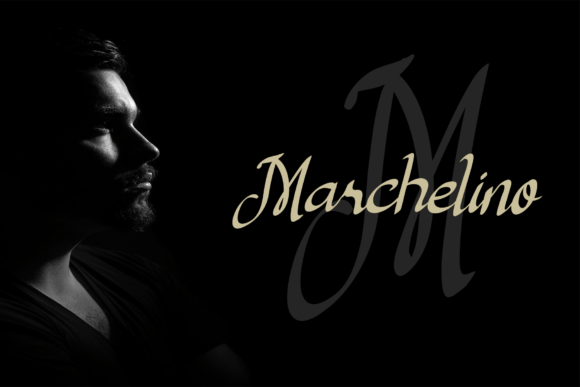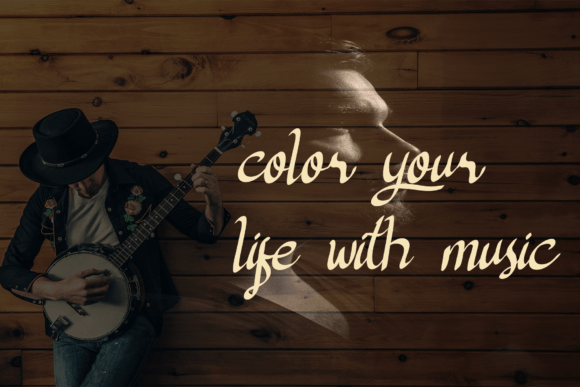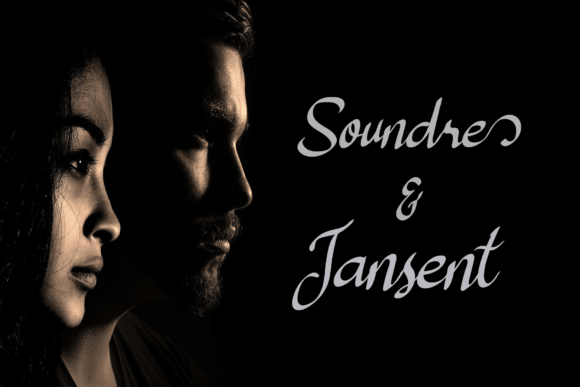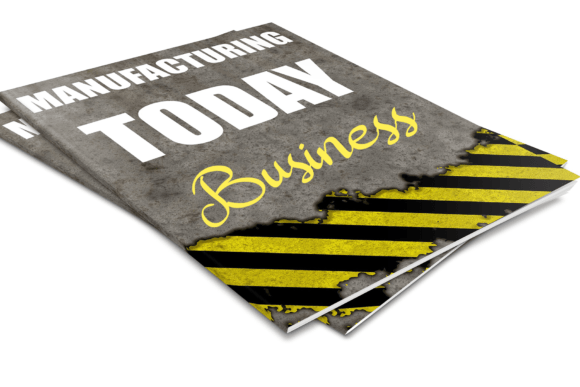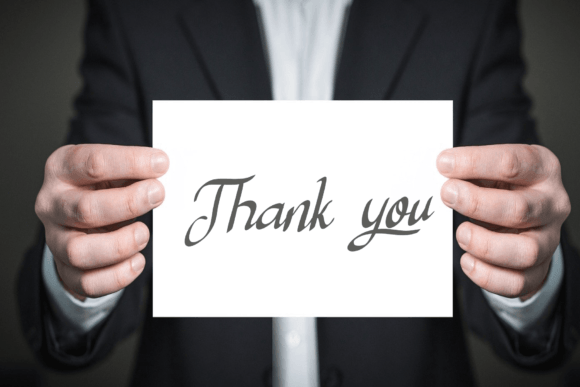
Valentine Day Font
About Valentine Day Font
Valentine Day unfolds as a magical handwritten font, intricately crafted to infuse a touch of elegance into your designs. Whether you’re seeking fonts for Instagram posts or calligraphy scripts for DIY projects, this font serves as the enchanting element that transforms any creative idea into a genuine piece of art.
The magical essence of Valentine Day emanates from its handwritten charm, adding a unique and personalized touch to your designs. The carefully created strokes exude elegance, making this font a perfect choice for a variety of creative applications, from social media visuals to artistic DIY endeavors.
The versatility of Valentine Day allows it to seamlessly adapt to different design contexts. Whether you’re crafting romantic messages, creating invitations for a special occasion, or adding a touch of sophistication to your Instagram feed, this font becomes a transformative tool that elevates your creative expression.
Valentine Day isn’t just a font; it’s a bridge between creativity and elegance. Its magical quality lies in its ability to turn ordinary design ideas into genuine works of art. The handwritten script adds warmth and authenticity, making it an ideal companion for those seeking to evoke emotions and capture attention with grace.
In conclusion, embrace the magic of Valentine Day as it graces your designs with elegance and charm. Whether you’re a social media enthusiast, DIY enthusiast, or professional designer, let this font be the catalyst that turns your creative ideas into true masterpieces. Create with confidence, and let Valentine Day be the magical touch that makes your designs stand out as genuine works of art.